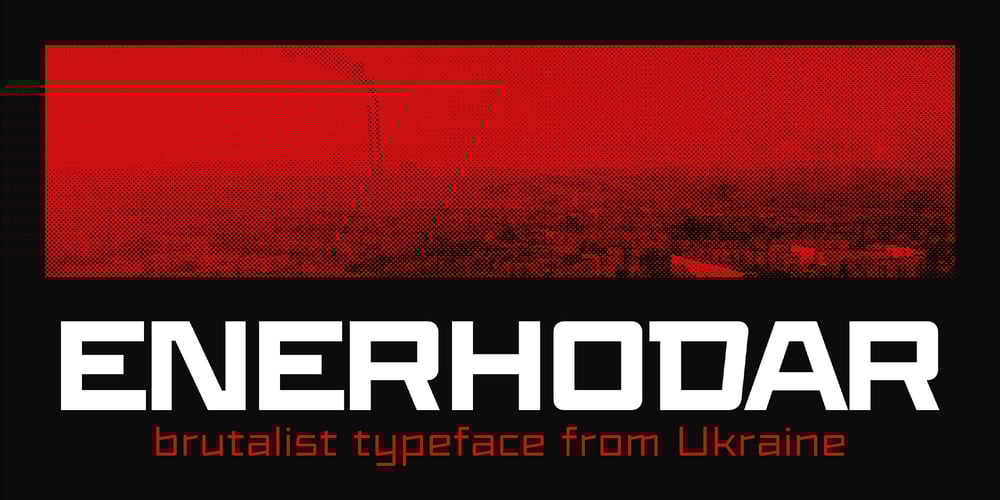
Enerhodar Font Family was designed by Serhii Makarenko, Maksym Burov and published by AlfaBravo. Enerhodar contains 9 styles and family package options. Enerhodar is a modern brutalist sans serif typeface, the style of which is inspired by signboards found in the Ukrainian city of Enerhodar. The font combines a static base and dynamic letterforms. Bold styles have a noticeable contrast in lowercase letters so they will work well as a display typeface in logos, posters, websites, or book covers. Light styles are designed for calm typesetting. The font has a technological style and a strong Ukrainian character.